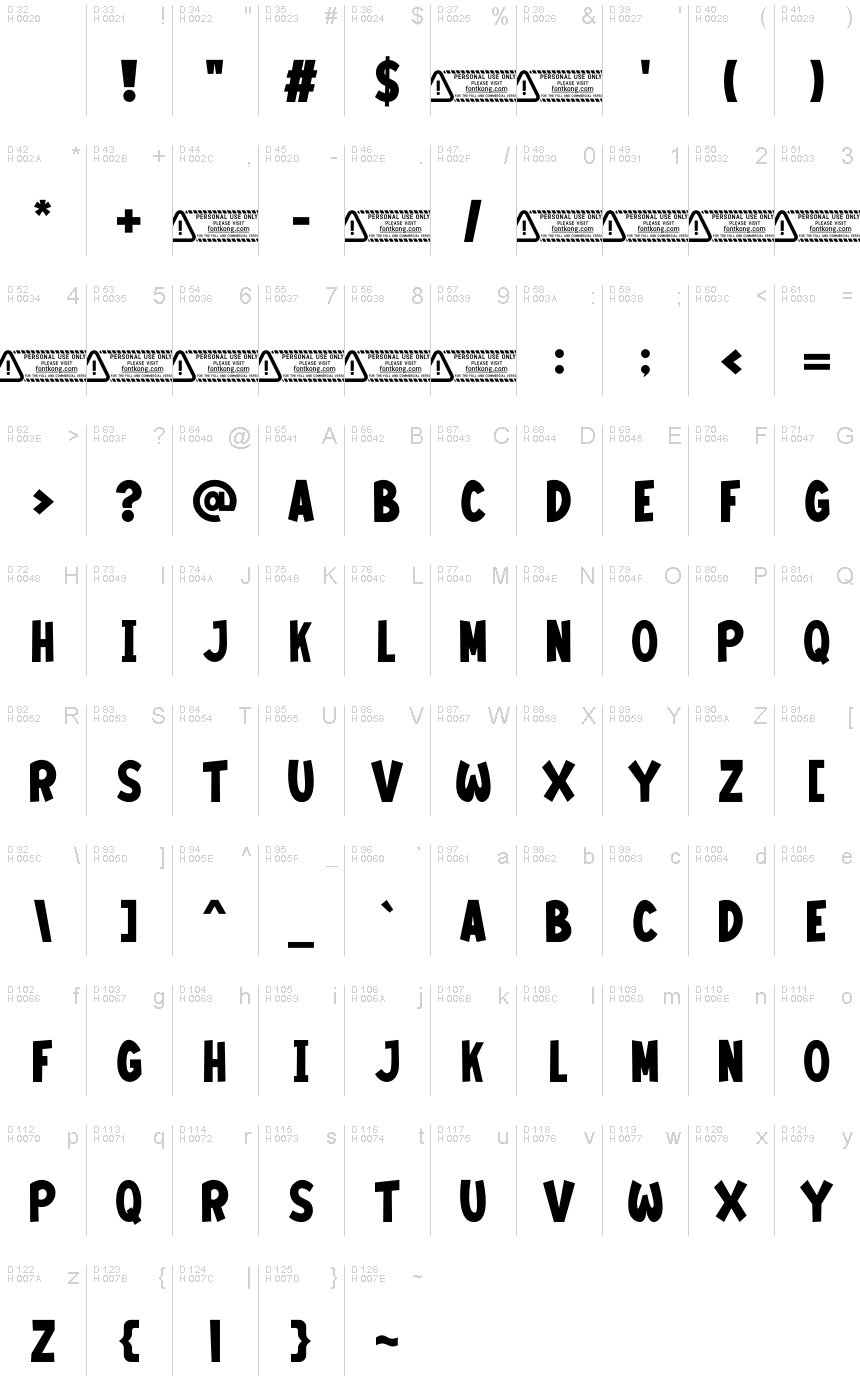
Kids Swing font by Kong Font is a playful and vibrant display typeface designed to capture attention with its bold, condensed, cartoon style.
Its lively curves and animated character give it a unique aesthetic appeal that's both fun and engaging. This free font is perfect for projects requiring a whimsical touch, such as children's books, playful branding, or eye-catching posters.